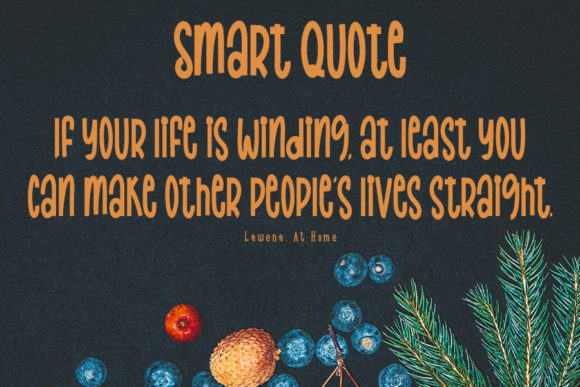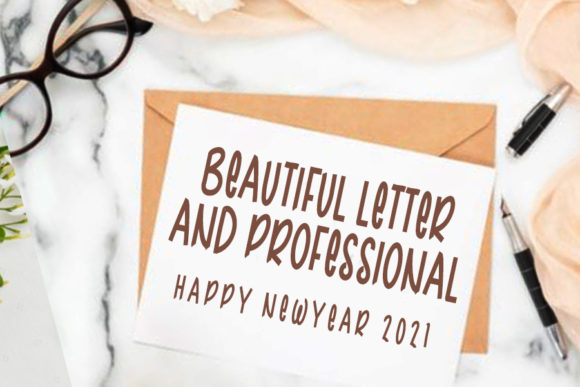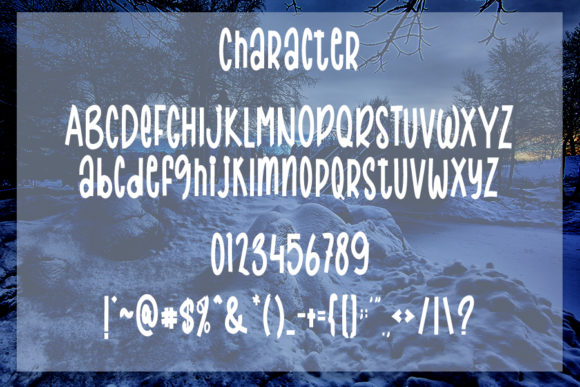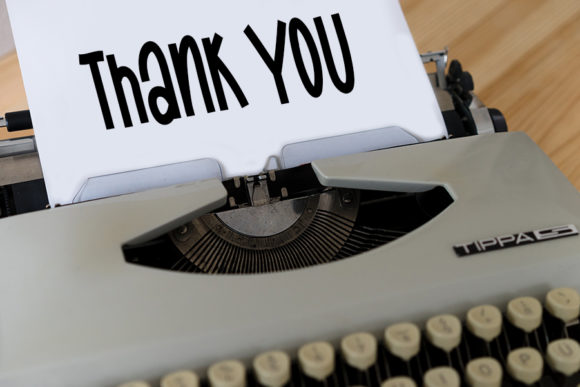
About Winter Melody Font
Winter Melody is a narrow and playful handwritten font with modern details. It can be used for various purposes such as logos, headings, t-shirts, letterhead, signage, labels, news, posters, badges and so much more.